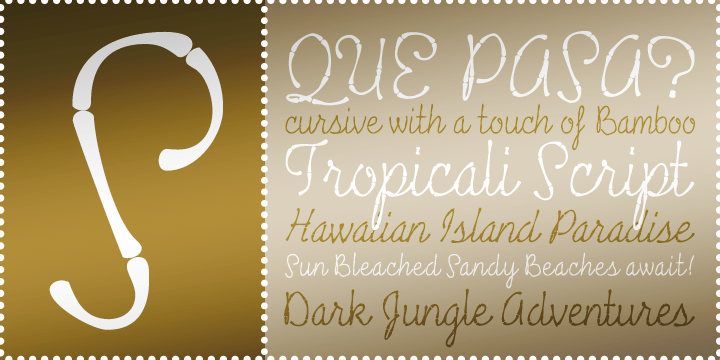
Tropicali Script BTN
Tropicali Script is a typestyle that makes a script out of bamboo parts. Perfect for that tropical flavor, and even includes a rough wiggly-penned version for a more handwritten feel.